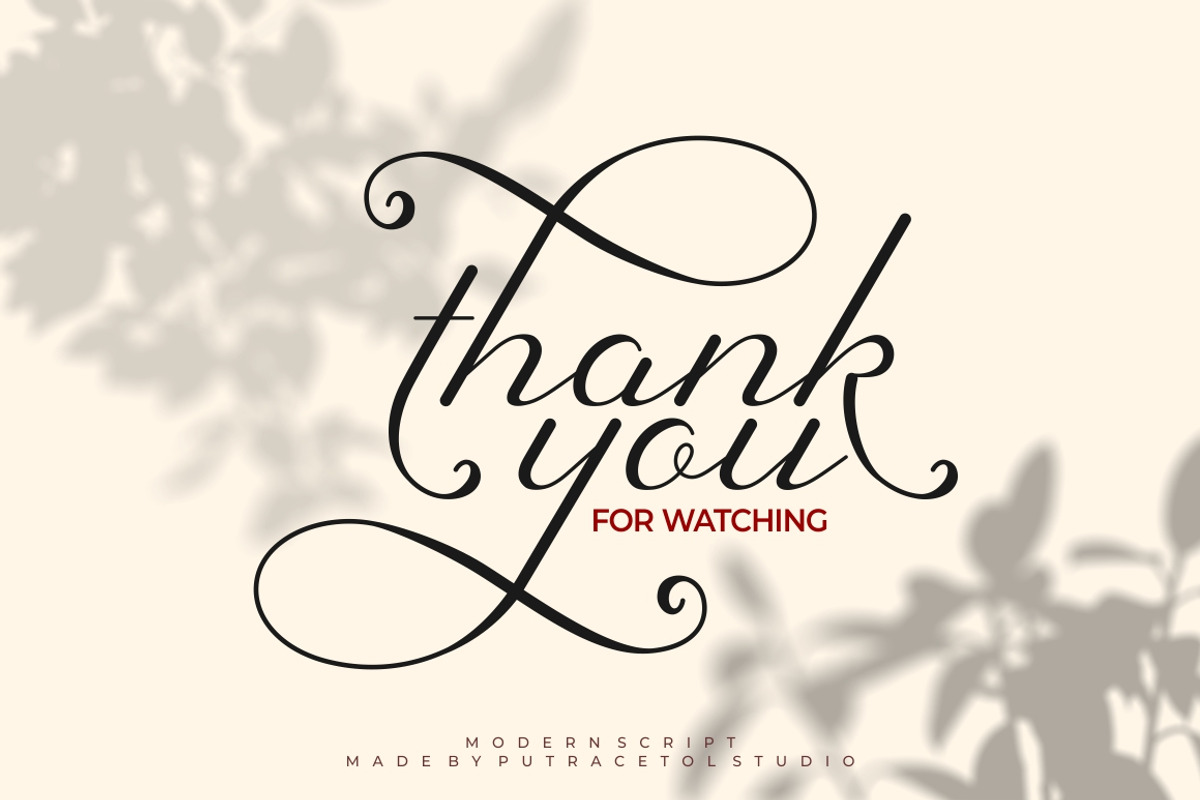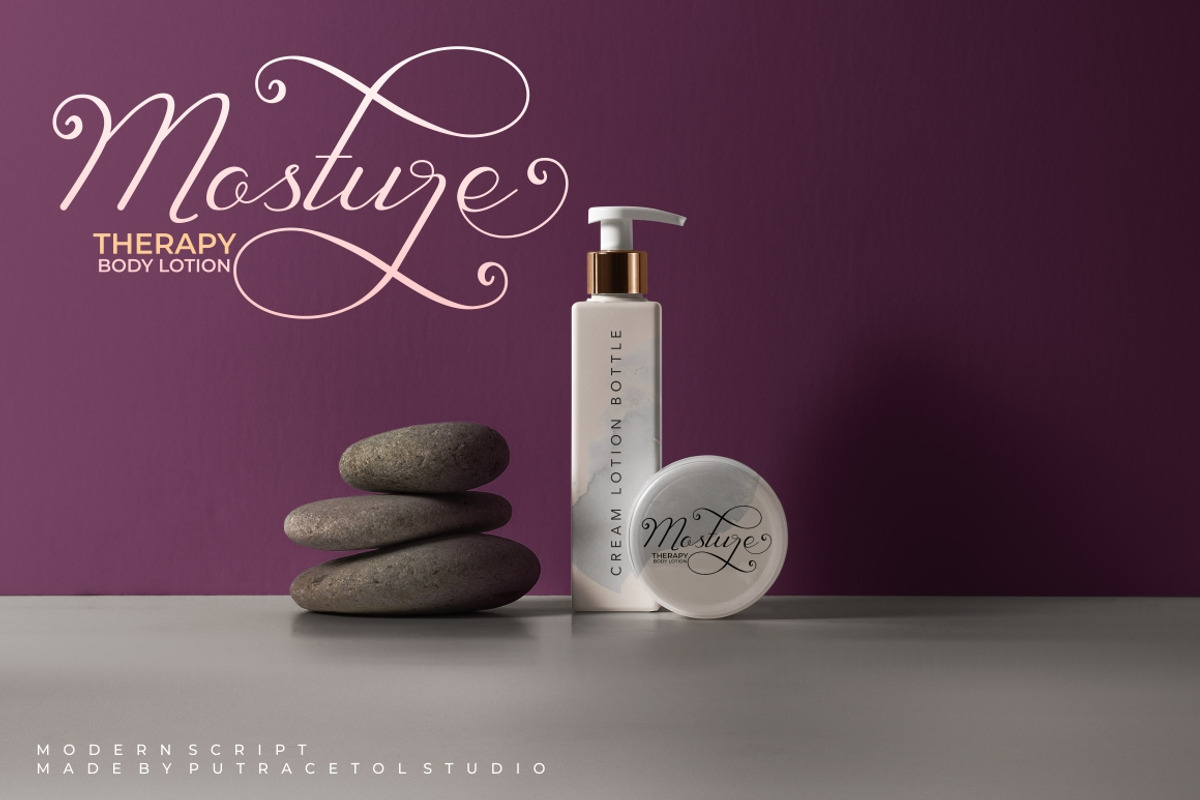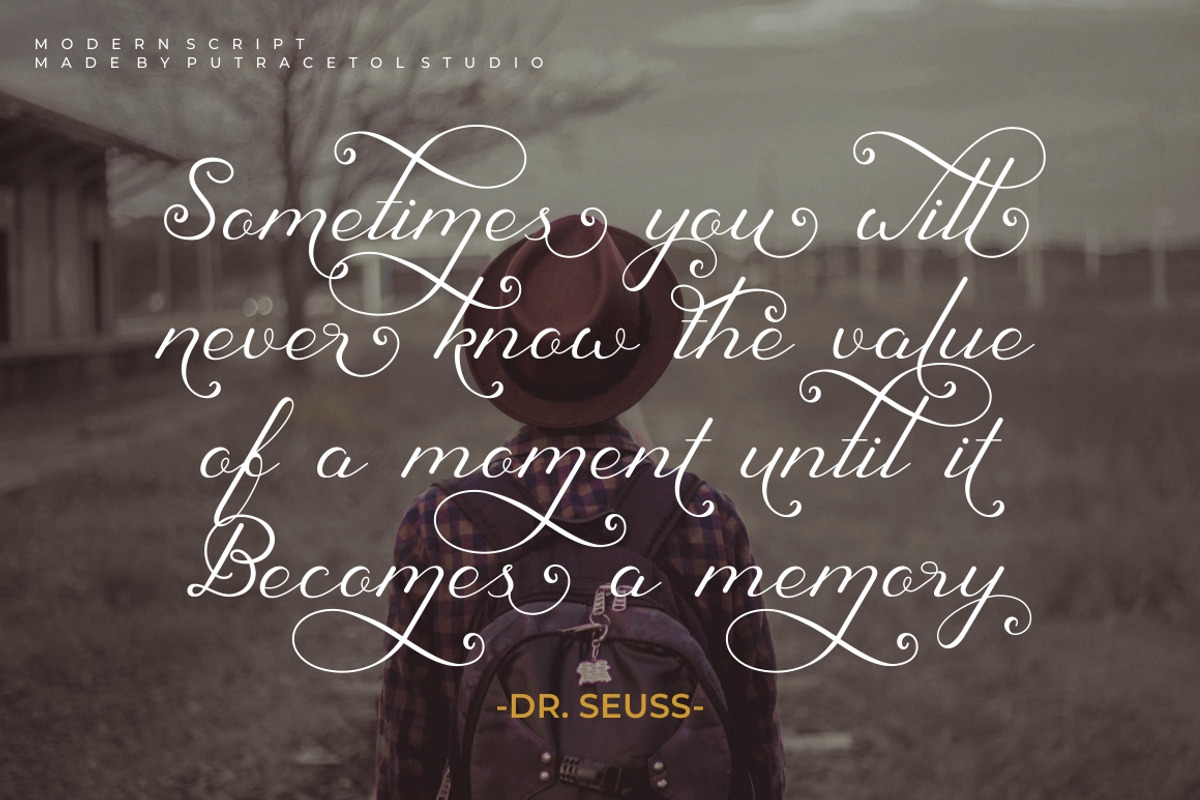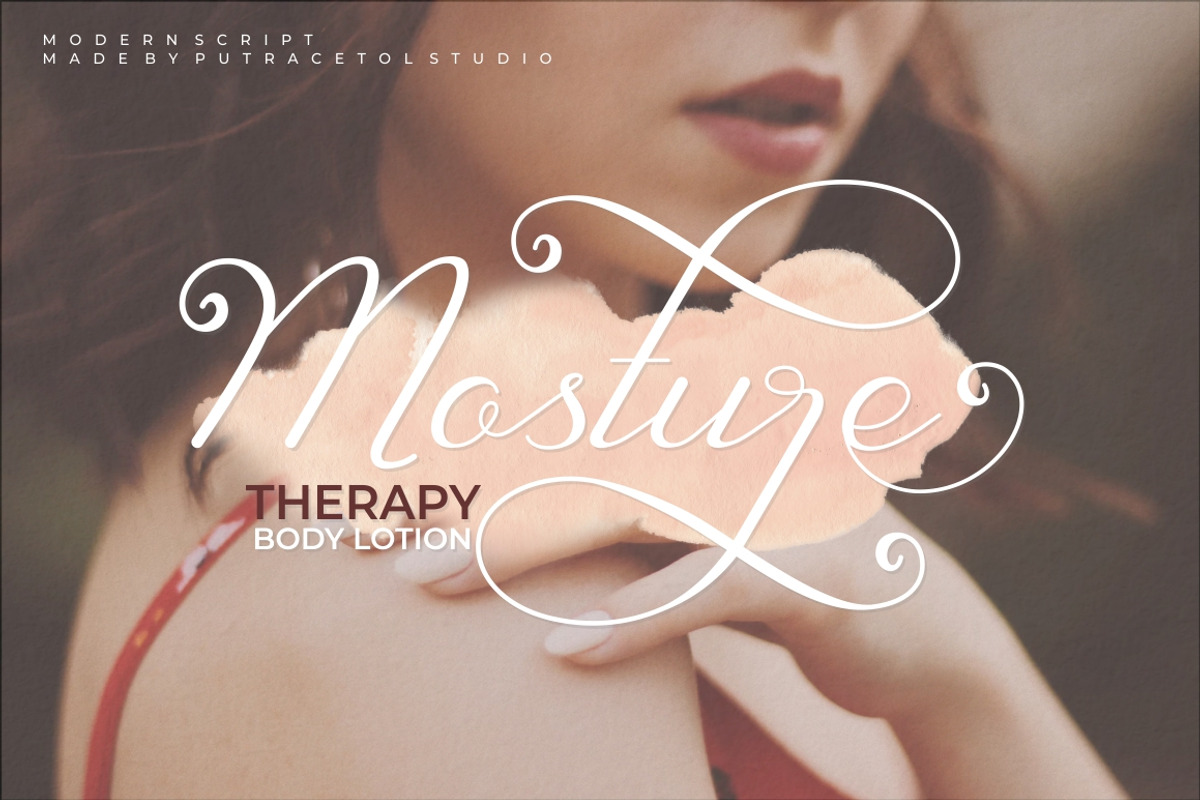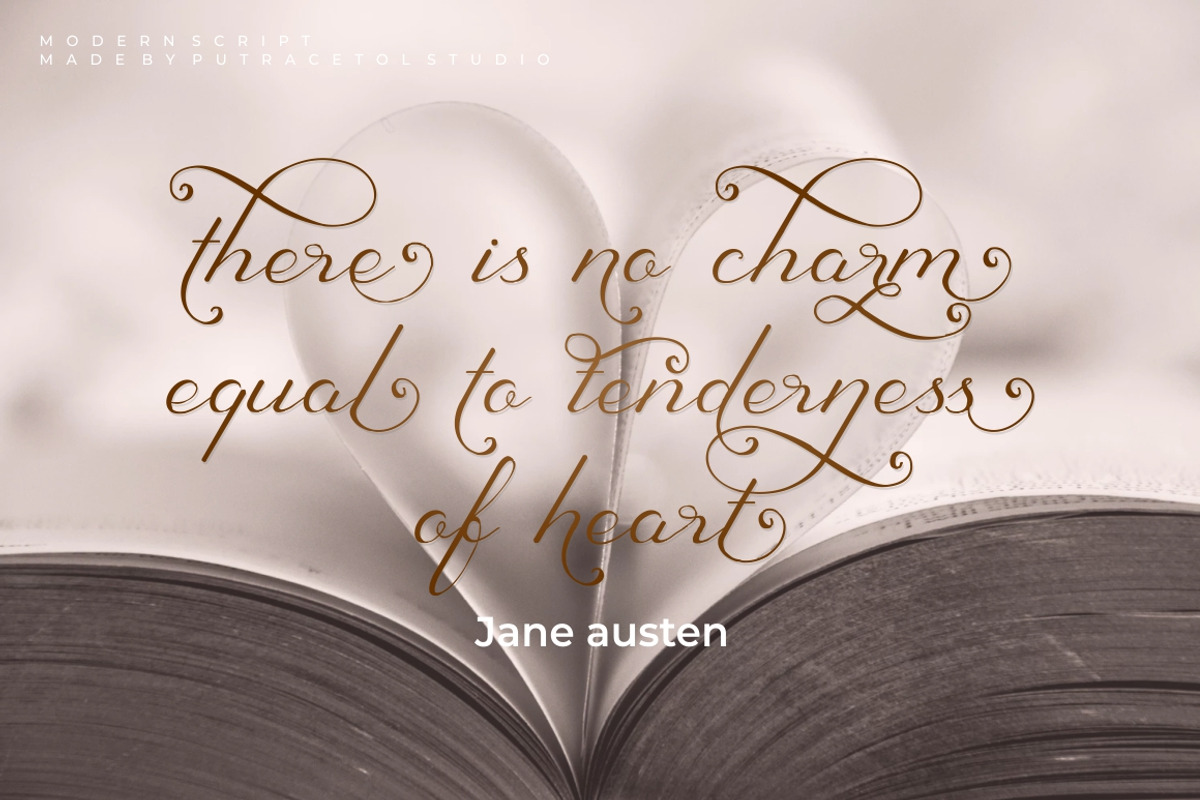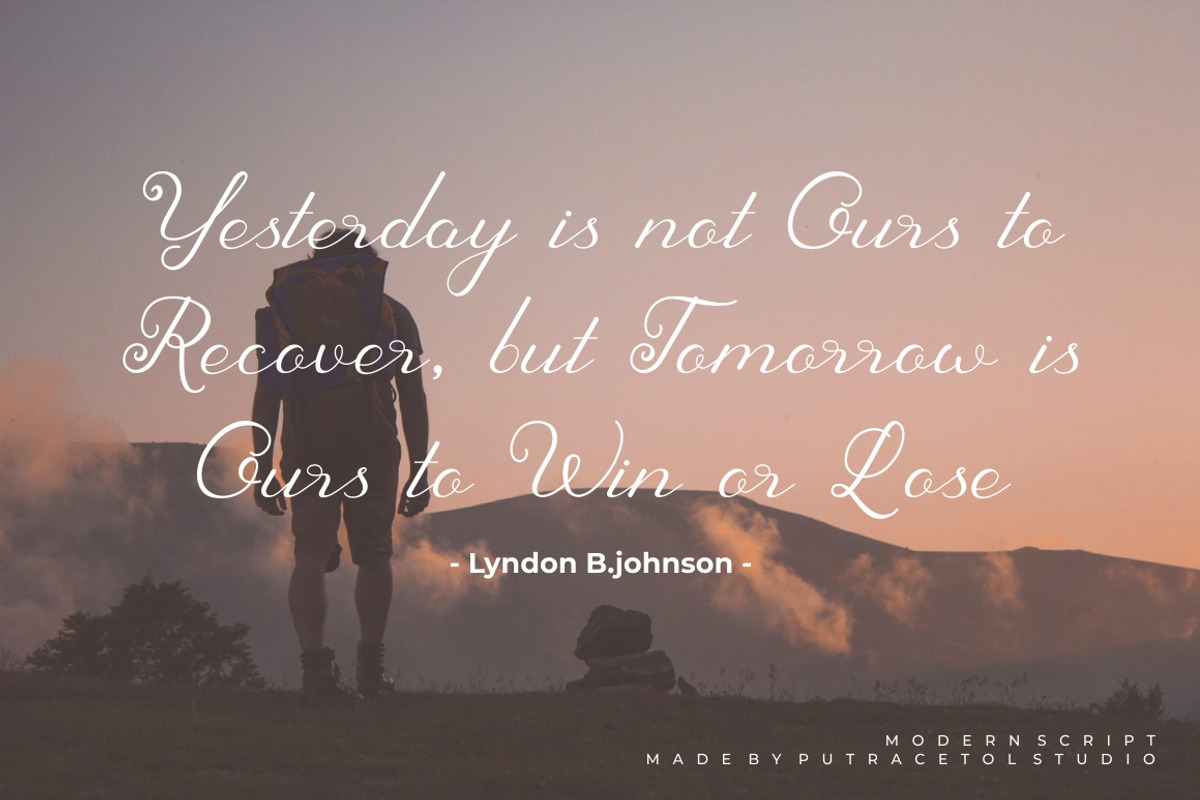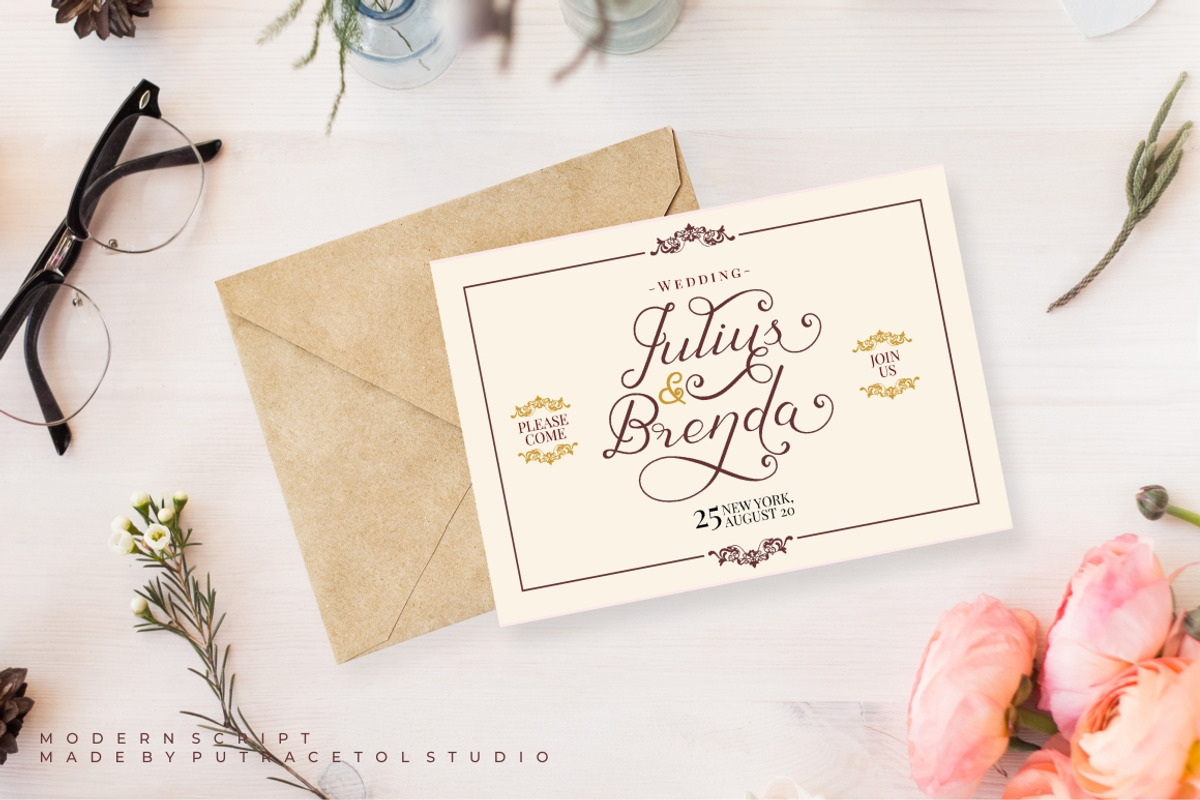
Sherley
Introducing Sherley, a new elegant script font. a lovely, elegant and sweet script font. Sherley is perfect for styling logos, stationery, wedding event, invitation, quote, social media, websites and so much more!
Come with Opentype feature with a lot of alternates, its help you to make great lettering.This font is also support multi language.
Comes with feature :
- Number, Punctuation And Symbols
- Multilanguage Support.